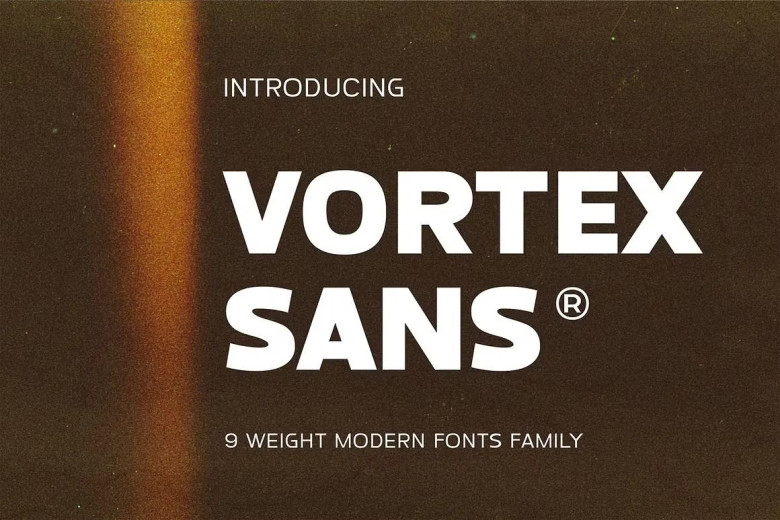
Get retro with Vortex Sans, an eye-catching retro font designed to bring back the 70s and 80s feel into contemporary designs. Equipped with Opentype alternative ligatures as well as optional ones to bring it even further alive, Vortex Sans can further be enhanced by increasing letter spacing to accommodate more text or simply leaving it as it is for body type fonts.
Vortex Sans Serif Font